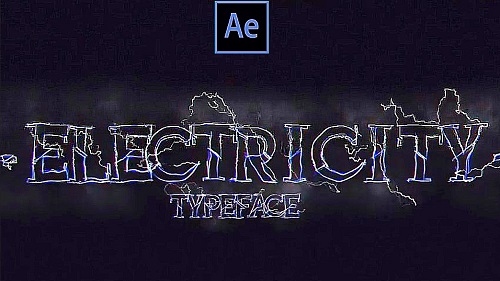
Electricity Typeface 2524430 - Project for After Effects
Electricity Typeface 2524430
This After Effects template features an electrified animated typeface. It includes a set of 43 alphabet
the necessary text in a few clicks. You can adjust the colors to match your style.